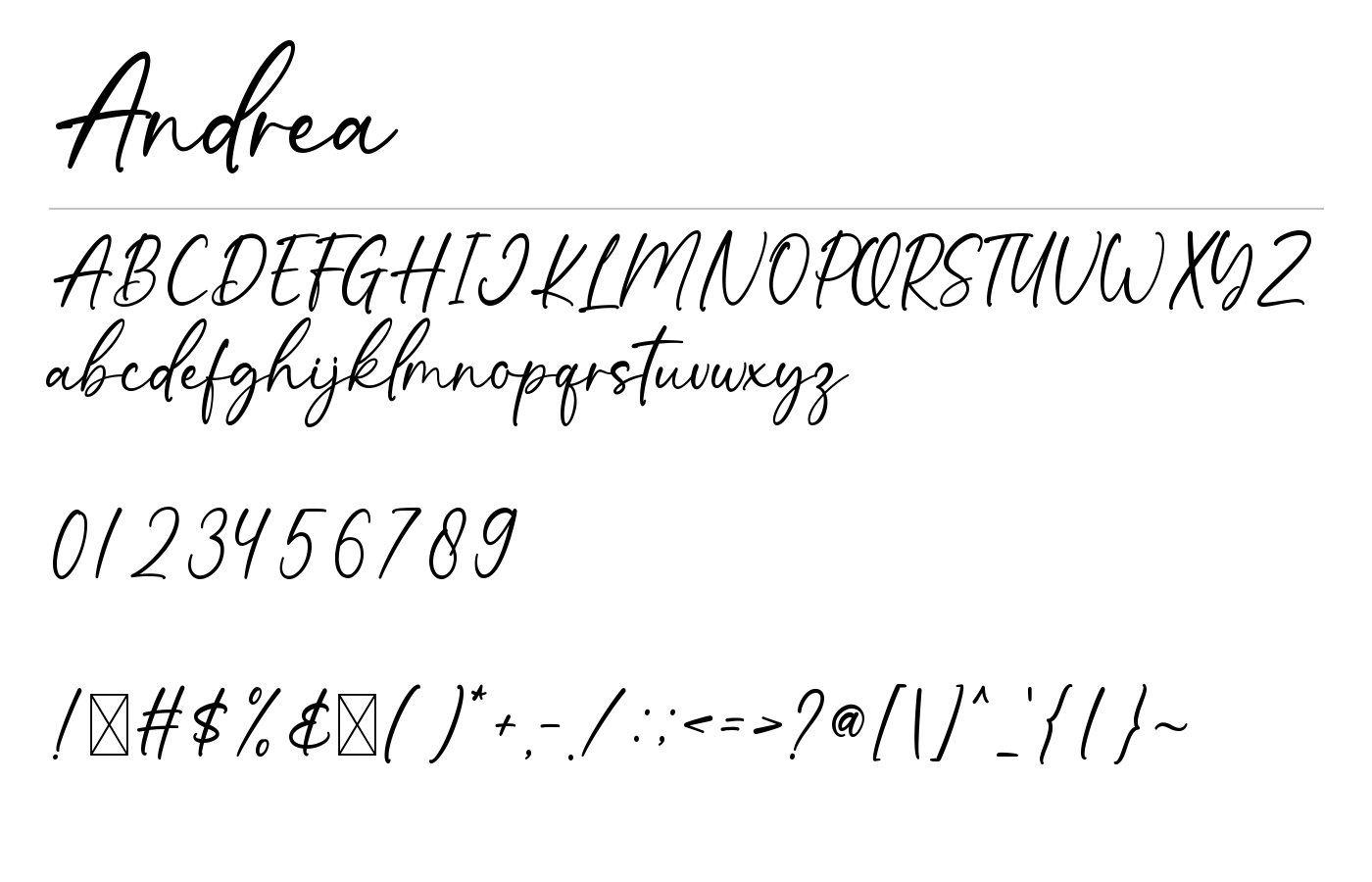
Andrea is a stylish script font with a handwritten feel, featuring a light weight and elegant, flowing strokes that convey a personal, friendly tone. Its tall x-height and slender letterforms make it perfect for creative projects, branding, and invitations where a modern yet approachable look is desired. This font works well in headlines and logos, especially for lifestyle, fashion, or boutique brands seeking a charming and sophisticated touch.
Andrea Font
About Andrea Font